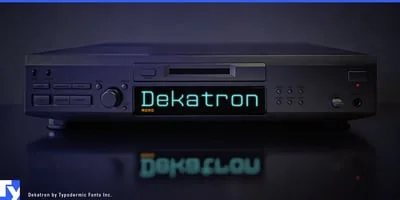
Dekatron Font
Dekatron Font is ideal for tech companies, electronics brands, digital displays, scientific instruments, retro-futuristic design, vintage computing themes, and industrial technology communications. This distinctive typeface brings electronic precision and vintage tech charm to technology-focused design projects.
Dekatron Font is exciting because it captures the essence of early electronic displays with its distinctive letterforms that evoke vintage computing and electronic instrumentation while maintaining contemporary functionality and exceptional clarity in digital applications.
The Dekatron Font family includes multiple weights and electronic styling variations that reflect the precision of electronic display technology. This technical collection provides designers with authentic options for creating memorable and technology-inspired brand experiences.
Dekatron Font provides access to a technologically crafted typeface inspired by the iconic electronic counting tubes of early computing history. This distinctive font features precisely engineered letterforms with electronic accuracy that create immediate associations with vintage technology, scientific instrumentation, and electronic innovation. The typeface showcases digital precision and retro-tech aesthetics that enhance technology communications while maintaining professional functionality. Its electronic character makes it particularly suitable for technology companies and scientific organizations that require typography capable of conveying technical precision, electronic heritage, and innovative engineering. Dekatron Font delivers exceptional technological impact for applications where conventional fonts lack the electronic character and vintage tech appeal necessary for specialized technology communications. The font's electronic appeal and retro-tech aesthetic make it an essential tool for designers working on projects that require typographic expression of electronic innovation, vintage computing, and scientific precision that resonates with audiences seeking authentic technology heritage and electronic sophistication.